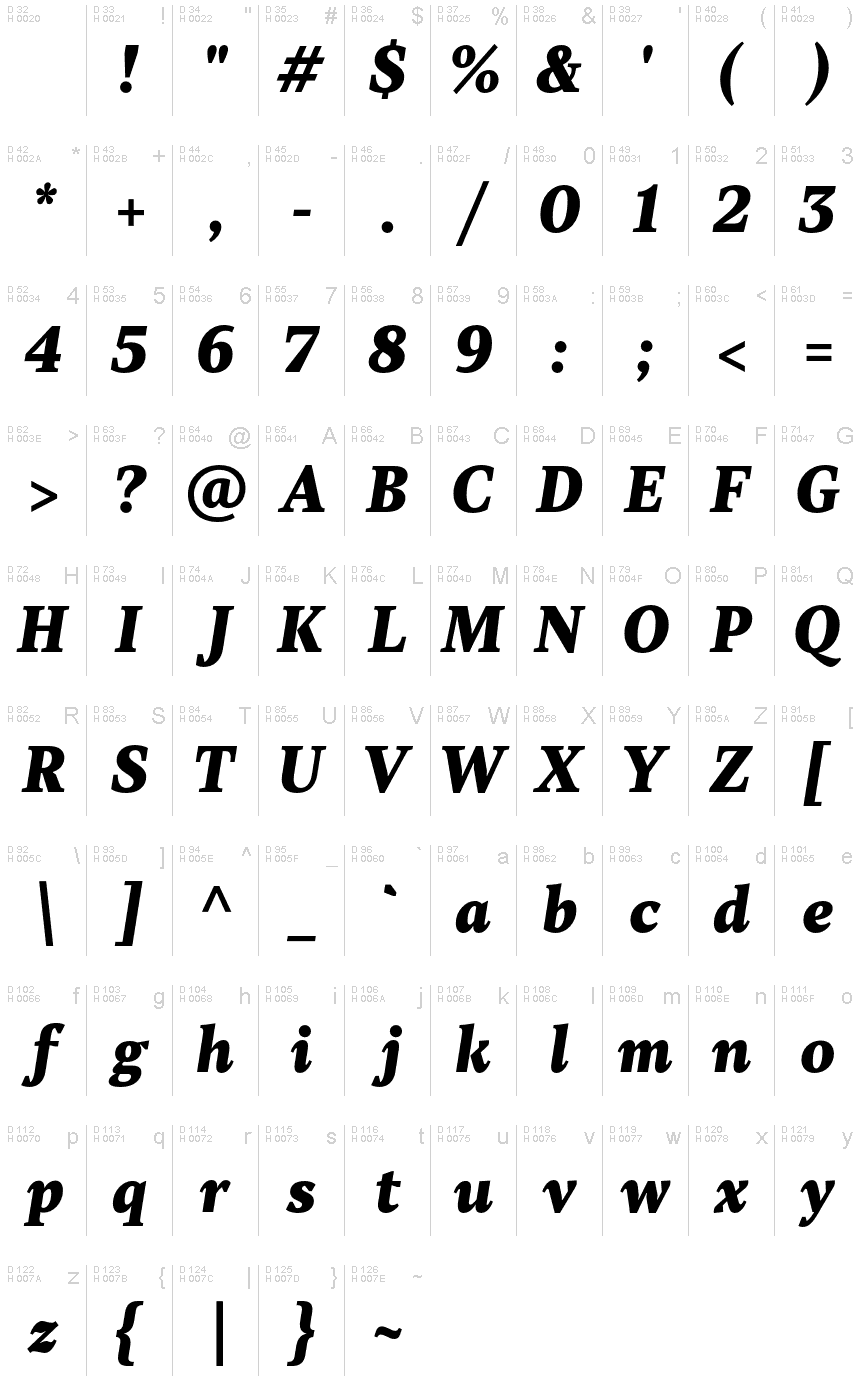
TT Jenevers Trl Black Italic
TT Jenevers Black Italic is a captivating serif font designed by TypeType Foundry. Its extra-bold weight makes it perfect for headlines, titles, and logos that require a strong and impactful presence. The italic style adds a touch of elegance and sophistication, making it suitable for luxury brands, fashion magazines, and high-end products. This typeface is versatile enough to be used in various projects such as editorial design, packaging design, or branding materials. Its unique personality will make your designs stand out and leave a lasting impression on your audience. Try TT Jenevers Black Italic today and elevate your designs to new heights!